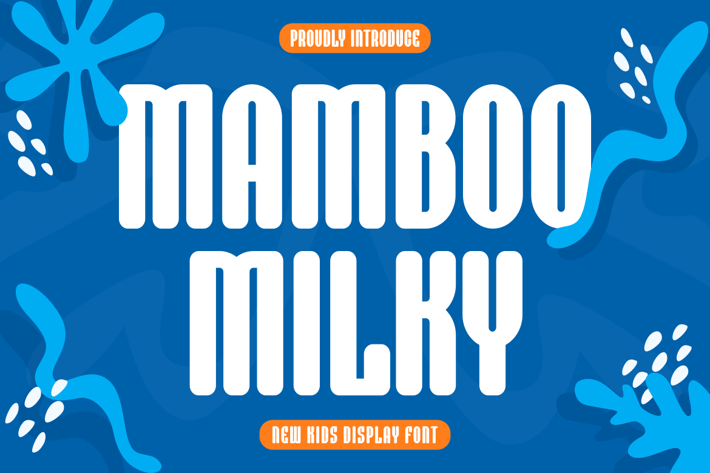
MAMBOO MILKY - Kids Font
Presenting MAMBOO MILKY - Font is suitable for badge, labels, logo, branding, magazine, poster and etc. Our fonts have Uppercase & Lowercase, Numeral & Punctuation, Multilingual support and Opentype Features. For Amazing designs you can mix with other fonts as a complement.